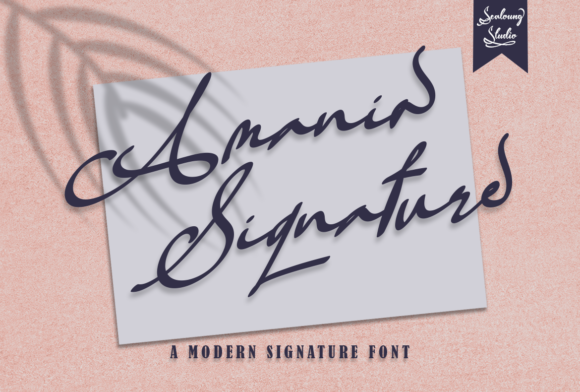
The Elusive Perfect Font: My Journey with Amania Signature
Ah, the quest for the perfect font. We’ve all been there – scrolling through endless font libraries, trying to find that one special something that brings our design to life. I recall a particularly frustrating project where I was tasked with creating a wedding invitation suite. My client wanted something elegant, yet playful; classic, yet modern. I tried font after font, but nothing seemed quite right. That was until I stumbled upon Amania Signature.
Amania Signature: A Game-Changing Font
Amania Signature is a unique and elegant handwritten font that has become a staple in my design toolkit. It looks beautiful on a variety of designs requiring a personalized style, such as wedding invitations, thank you cards, weddings, greeting cards, logos, and so on. This font is PUA encoded, which means you can access all of the glyphs and swashes with ease!
• ✨ Elegant and sophisticated, yet approachable and friendly
• ✅ Highly versatile – works well in both digital and print designs
• 💫 PUA encoded for easy access to glyphs and swashes
• 🌈 Beautifully crafted with attention to detail
While Amania Signature is an amazing font, there are a few things to keep in mind:
• ⚠️ Some users may find the font a bit too ornate for very casual designs
• 🤔 Limited use of uppercase letters, which may require creative workarounds
A Practical Guide to Using Amania Signature
The Story Behind Amania Signature
Amania Signature was crafted with love and care by a talented font designer. The story goes that the designer was inspired by the beauty of handwritten letters and the elegance of calligraphy. They spent countless hours perfecting the font, ensuring that every detail was just right. And the result is a truly stunning font that’s perfect for a wide range of designs.
A: PUA (Private Use Area) encoding allows font designers to include additional glyphs and characters that aren’t part of the standard Unicode character set. This means you get access to more swashes, glyphs, and stylistic alternates, giving you greater flexibility and creative control.
Q: Is Amania Signature suitable for digital designs, or is it only for print?
A: Amania Signature is highly versatile and can be used in both digital and print designs. Its elegant, sophisticated style works beautifully in a variety of applications, from social media graphics to wedding invitations.